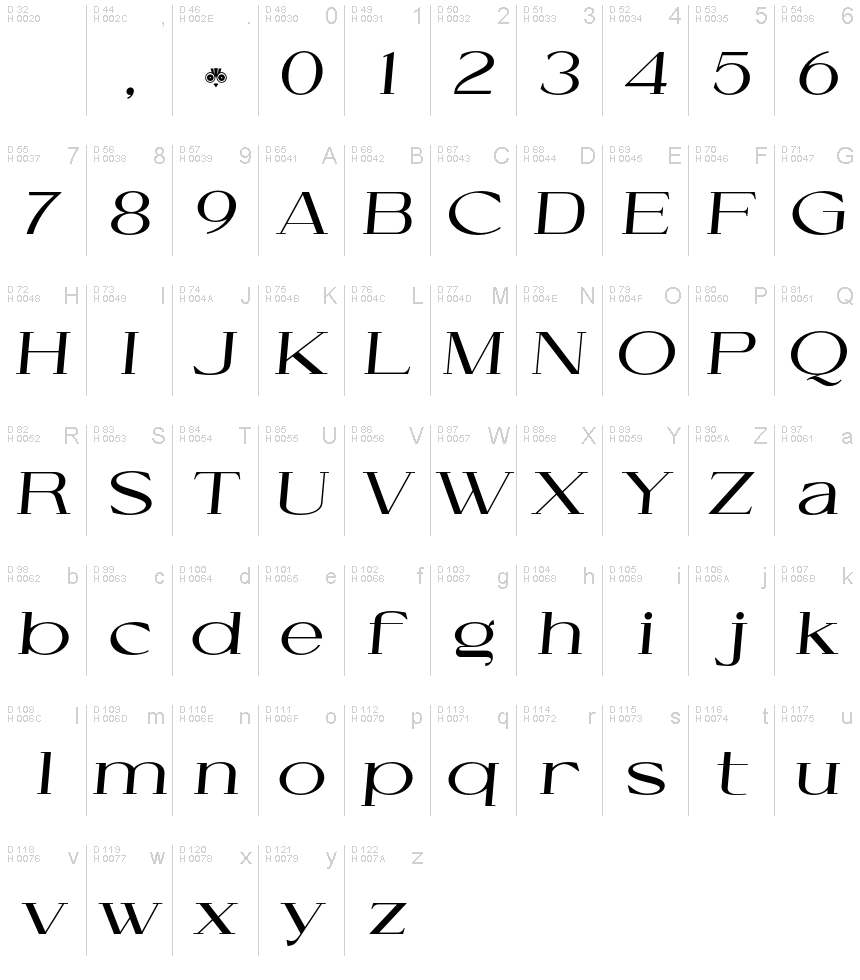
Cellofy SemBd Exp Ita font, part of the Cellofy family designed by Owlking Project, is a striking serif with an expanded width that exudes elegance and sophistication. This free font for personal use offers a distinctive blend of traditional serif charm and modern aesthetics.
Its broad proportions make it perfect for creating impactful headlines, sophisticated branding materials, and striking editorial layouts. The Cellofy font's unique style makes it an excellent choice for designers seeking to enhance the visual appeal of their projects with a touch of class.
Cellofy SemBd Exp Ita